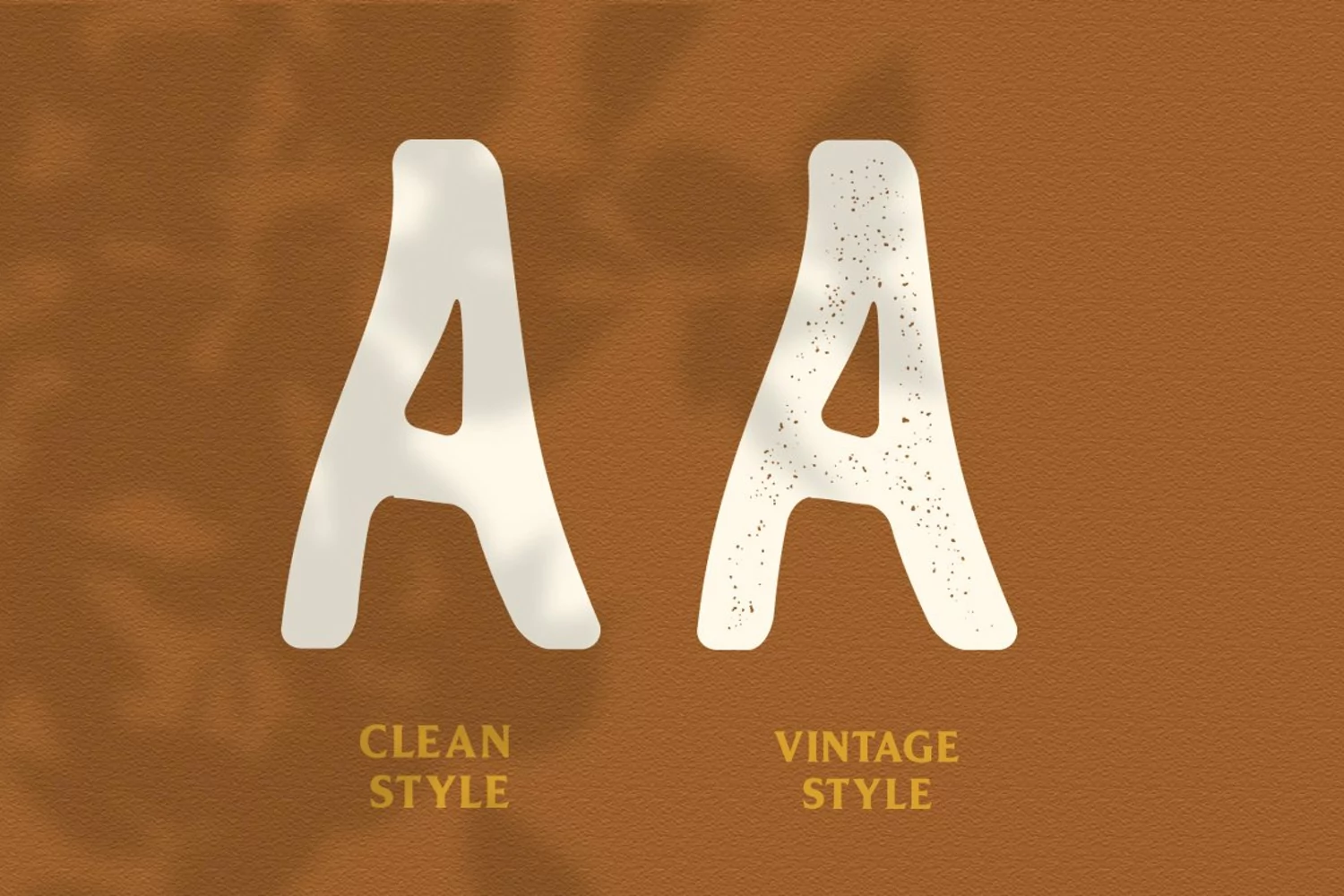
ALVATER is a vintage display typeface. A minimal contrast look that has been synonymous with fashion for decades. This font is both modern and nostalgic and works great for logos, mastheads and pull quotes. It pairs beautifully with a minimal sans serif or light script font.